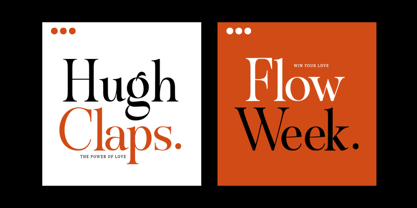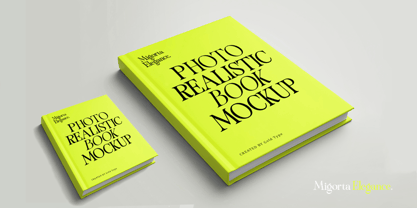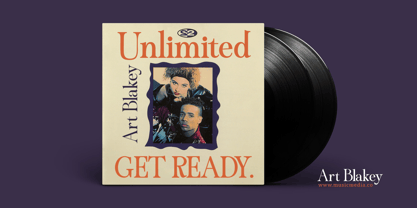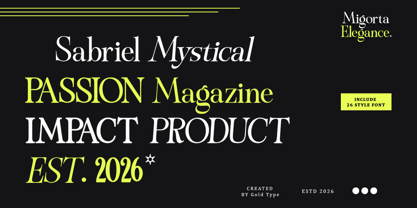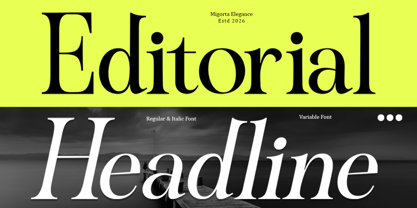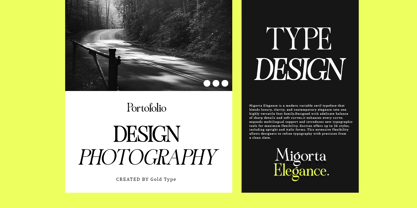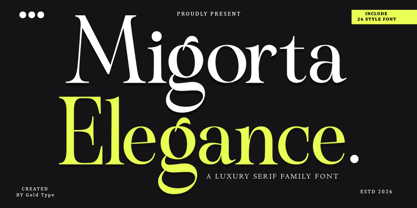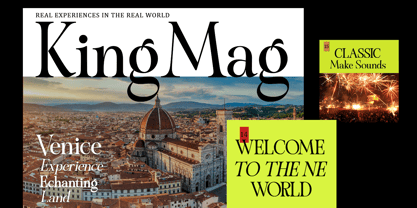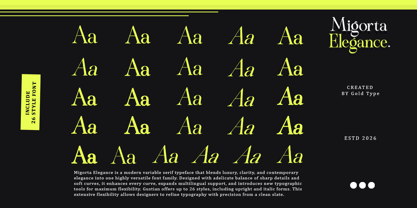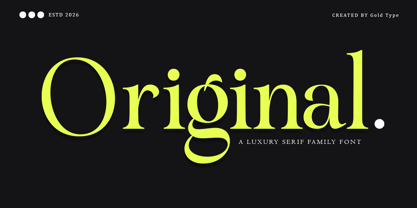
Migorta Elegance
by Gold Type
The Migorta Elegance Font Family was designed by Wahi Din and published by Gold Type. Migorta Elegance contains 26 styles and family package options. More about this family
Migorta Elegance is a modern variable serif typeface that blends luxury, clarity, and contemporary elegance into one highly versatile font family. Designed with a delicate balance of sharp details and soft curves, this font enhances every curve and white space, expands multilingual support, and introduces new typographic tools for maximum flexibility. Migorta Elegance offers up to 26 styles, including upright and italic forms. This extensive flexibility allows designers to refine typography with precision—from clean, minimalist layouts to bold, expressive statements. Balanced proportions, high legibility, and consistent rhythm work beautifully across a wide range of large display sizes and smaller text settings. Perfect for: branding and logos, editorial and app design, advertising, packaging, and high-end display typography. Key features: Fully variable font for maximum flexibility. Luxurious modern serif characters. Balanced sharp and soft shapes for a premium feel. A comprehensive font family suitable for both display and text use.
Designers: Wahi Din
Foundry: Gold Type